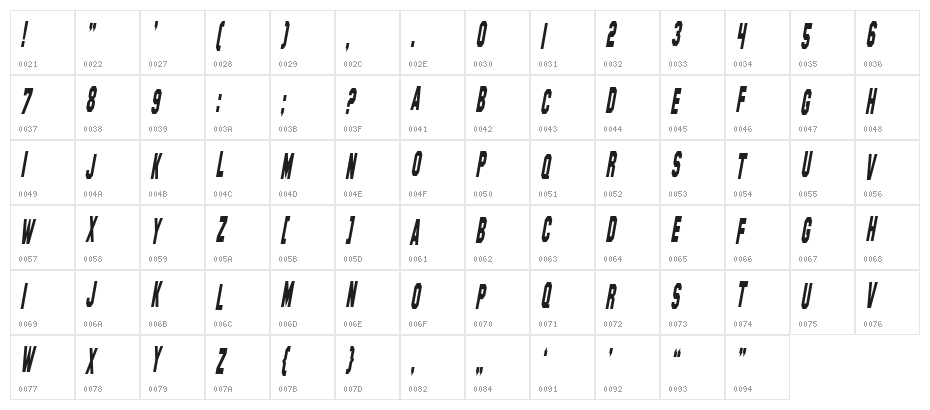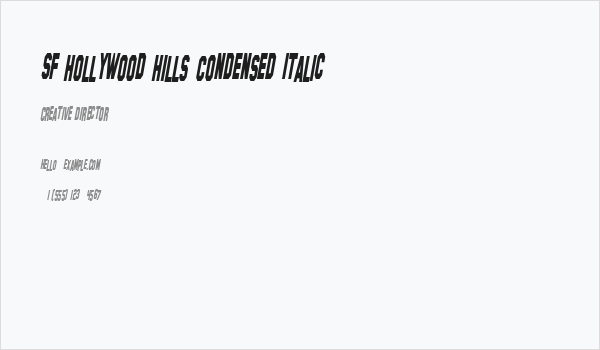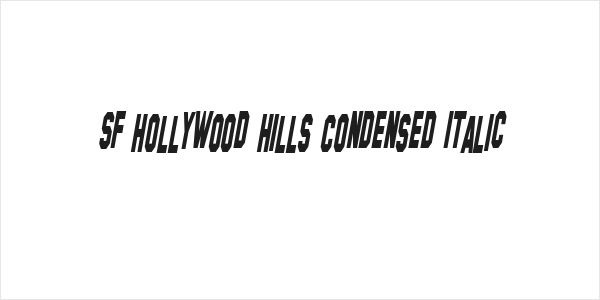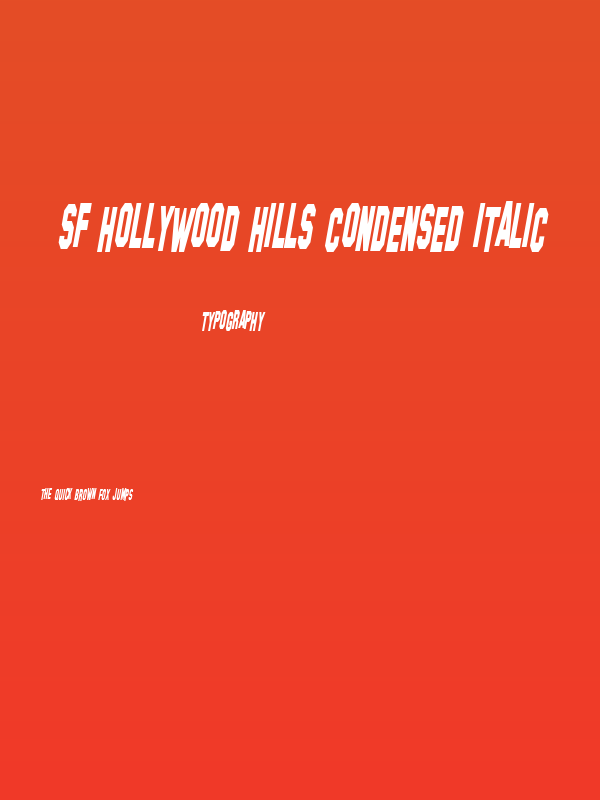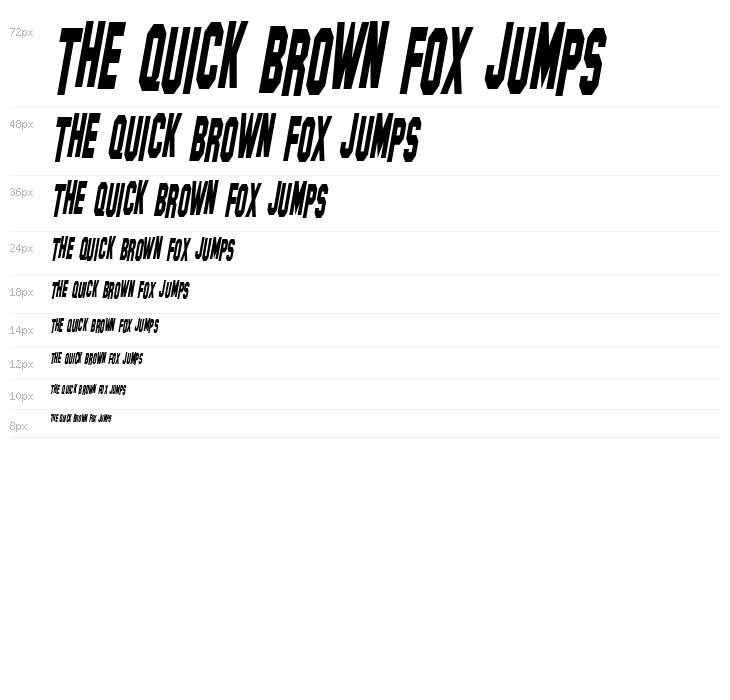
SF Hollywood Hills Condensed Italic Font
SF Hollywood Hills Condensed Italic Description
This font features a bold, condensed style with a distinct italic slant, giving it a dynamic and energetic appearance. The characters are tightly spaced, enhancing its compact and impactful look. The uppercase and lowercase letters maintain a consistent design, with sharp angles and clean lines that convey a sense of modernity and strength. The numerals and special characters are designed to match the overall aesthetic, ensuring uniformity across all text elements. The high contrast in stroke thickness adds to its boldness, making it suitable for attention-grabbing headlines and titles.
| Proposed Projects | Ideal for movie posters, sports branding, dynamic advertisements, and modern editorial design. |